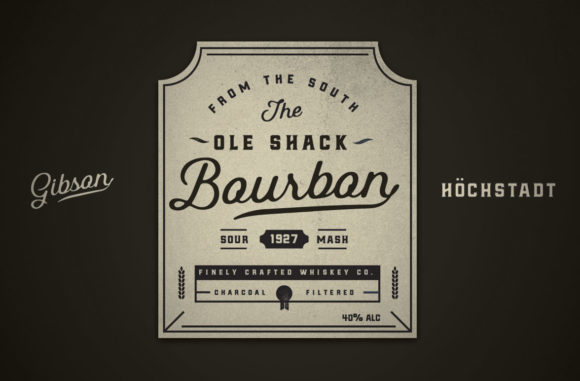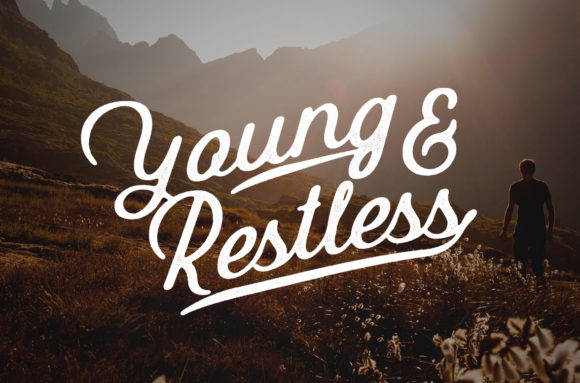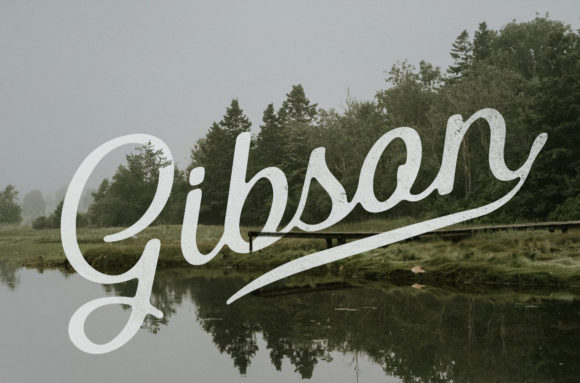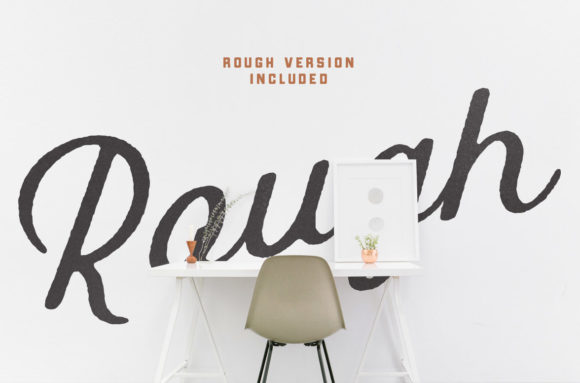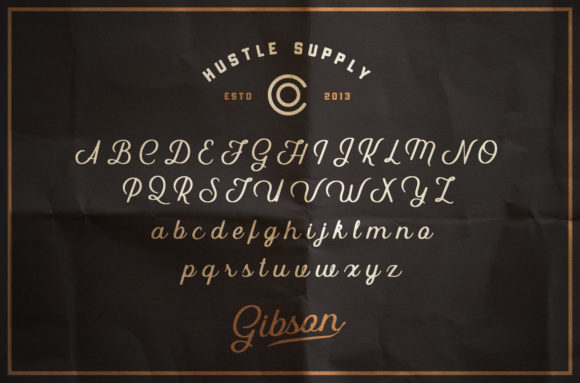
Introducing Gibson Font: The Epitome of Modern Elegance and Timeless Sophistication
In the realm of typography, few fonts manage to strike a balance between modernity and classic elegance. Gibson Font, however, stands out as a beacon of sophistication, blending the best of both worlds to create a truly unique and versatile typeface. Designed with a keen eye for detail and a deep understanding of the nuances of calligraphy, Gibson Font is a masterpiece that caters to designers and crafters seeking to elevate their projects with a touch of refinement.
The Genesis of Gibson Font
Gibson Font was carefully crafted with the aim of creating a modern, stylish, and highly elegant handwritten font. The creator’s vision was to produce a typeface that not only resonates with the timeless charm of traditional calligraphy but also embodies the freshness and approachability of contemporary design. The result is a font that exudes an air of sophistication while maintaining a friendly and approachable feel.
Key Characteristics of Gibson Font
- Modern and Stylish: Gibson Font boasts a modern aesthetic that sets it apart from more traditional typefaces. Its stylish appearance makes it perfect for projects that demand a fresh and current look.
- Handwritten with Elegance: The font’s handwritten nature lends it a personal and intimate feel, while its elegant strokes ensure that it remains suitable for a wide range of professional applications.
- Timeless Elegance: Gibson Font’s design is deeply rooted in the principles of classic calligraphy, ensuring that it will remain timeless and relevant for years to come.
- Classic yet Friendly: One of the font’s most compelling features is its ability to convey a sense of classic sophistication without ever appearing too formal or distant. This balance makes it incredibly versatile.
Applications of Gibson Font
Gibson Font’s unique blend of modern style and classic elegance makes it suitable for a wide array of design projects. Here are some of the areas where this font truly shines:
- Branding and Logotypes: For businesses looking to establish a strong and memorable brand identity, Gibson Font offers a distinctive and stylish solution.
- Wedding and Event Invitations: The font’s elegant and sophisticated appearance makes it perfect for wedding invitations, event posters, and other formal announcements.
- Packaging Design: Gibson Font can add a touch of luxury and sophistication to product packaging, helping brands to stand out on store shelves.
- Digital Media: Whether it’s for website headers, social media graphics, or digital advertising, Gibson Font’s modern aesthetic ensures that it looks great on screens of all sizes.
Why Choose Gibson Font?
In a sea of typefaces, Gibson Font stands out for several compelling reasons:
- Versatility: Its unique blend of modernity and elegance makes it suitable for a wide range of projects.
- Legibility: Despite its elegant and cursive nature, Gibson Font remains highly legible, even at smaller sizes.
- Emotional Connection: The font’s friendly yet sophisticated feel helps create an emotional connection with viewers, making designs more impactful.
Gibson Font is more than just a typeface; it’s a design statement. Its perfect blend of modern style, elegance, and friendliness makes it an invaluable tool for designers and crafters aiming to create outstanding and original designs. Whether you’re working on a branding project, designing wedding invitations, or crafting digital content, Gibson Font offers the versatility and sophistication needed to elevate your work to the next level. With Gibson Font, you can ensure that your designs are not only visually stunning but also timelessly elegant.